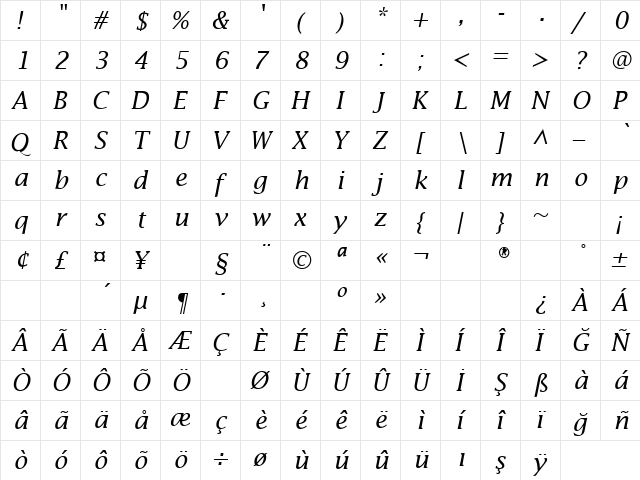
TR America Italic
Design Context for TR America Typeface
TR America offers clean, dependable letterforms without strong stylistic allegiance, making it a practical choice for designers who need flexibility. The dynamic lean of this cut emphasises speed and emphasis in any layout.
Pro Tip: Use TR America for emphasis, pull quotes, and subheadings where its slanted energy can add rhythm to the layout.